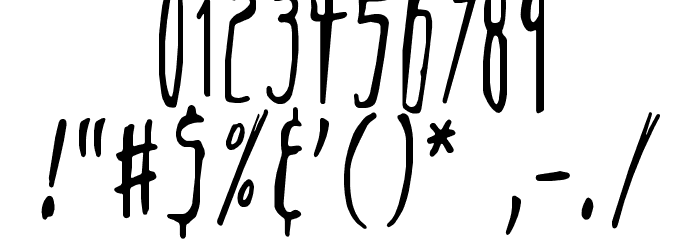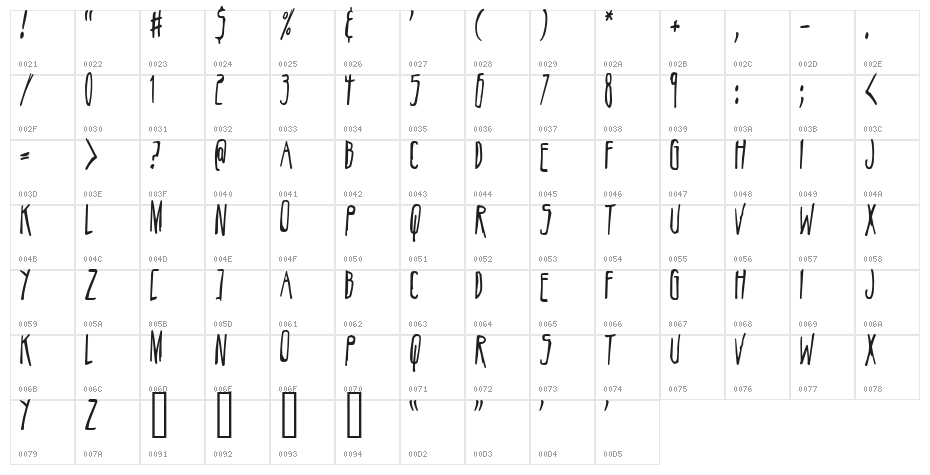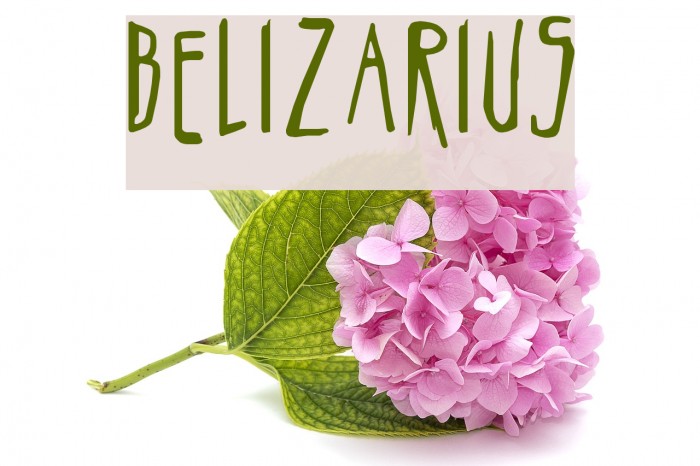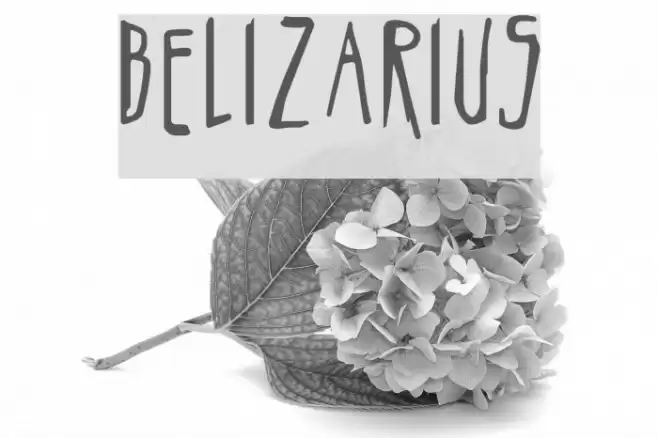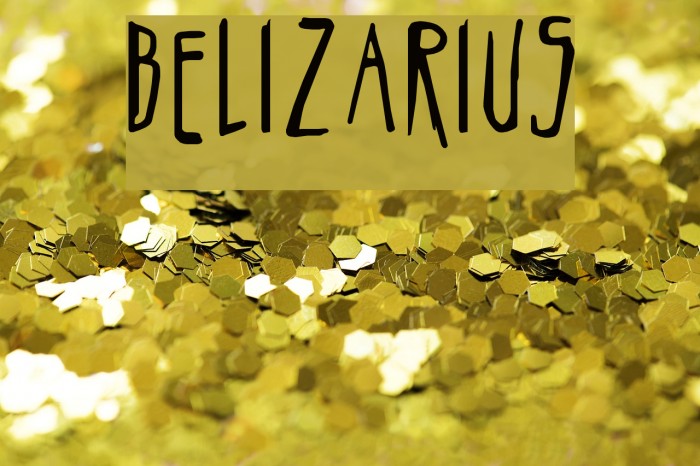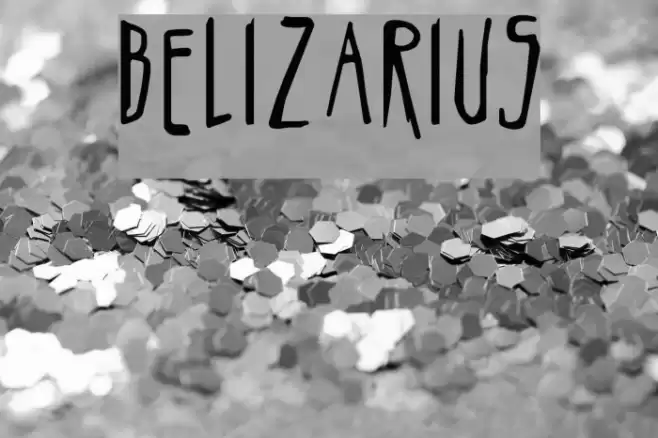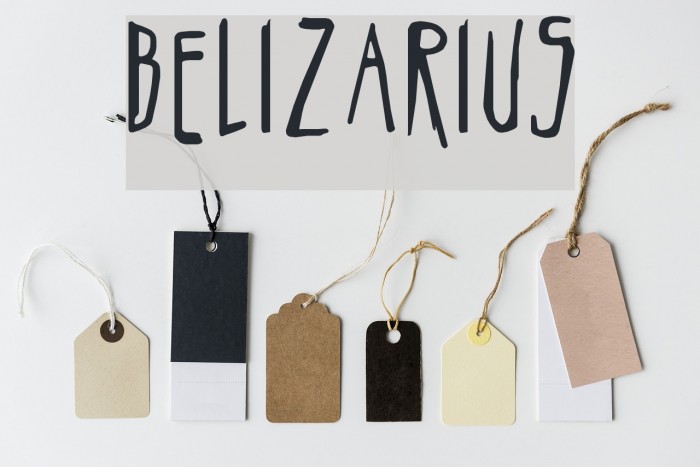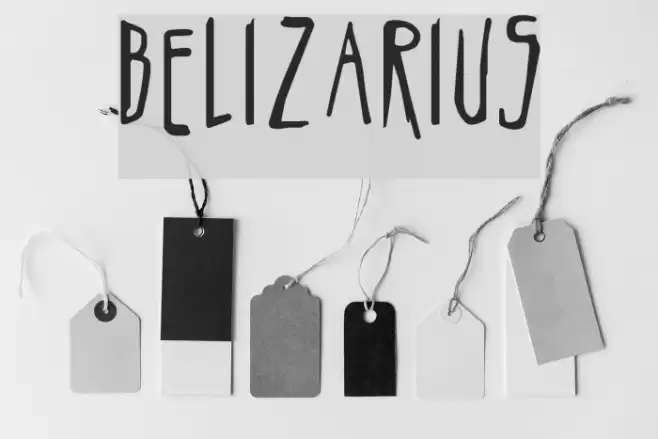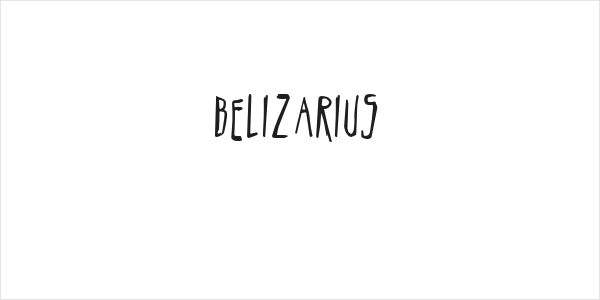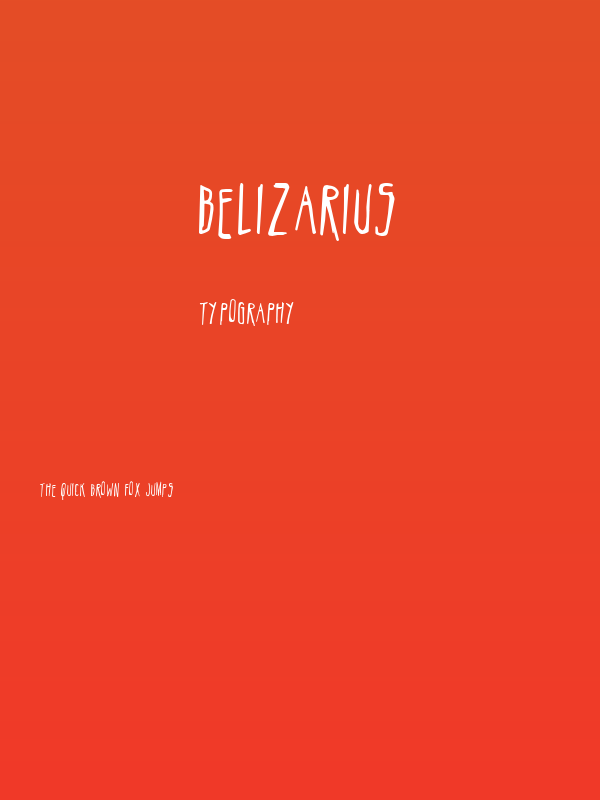
Belizarius Font
Belizarius Description
This font features a unique, hand-drawn style with elongated, slightly irregular letterforms that give it a playful and artistic appearance. The uppercase and lowercase letters maintain a consistent height, while the numbers and special characters complement the overall aesthetic. The strokes are uneven, adding to the handcrafted feel, and the characters are slightly tilted, enhancing the dynamic look. This font is ideal for projects that require a creative and informal touch, such as posters, invitations, or branding for artistic ventures.
BELIZARIUS UPPERCASE
BELIZARIUS LOWERCASE
BELIZARIUS OTHER CHARS
| Proposed Projects | Ideal for creative projects like posters, invitations, and artistic branding. |